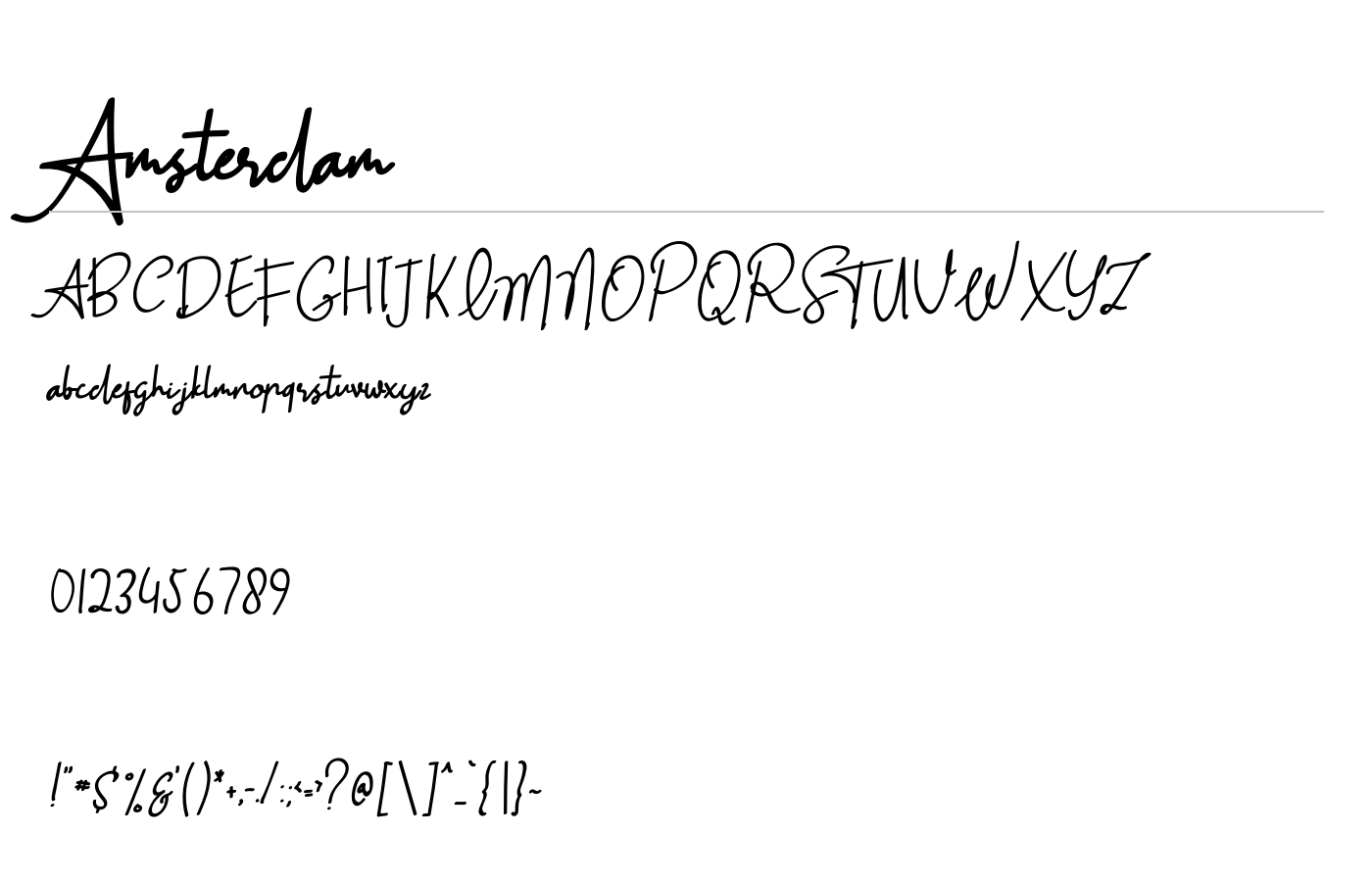
Amsterdam is a lively script font with a casual, handwritten feel characterized by its thin, slightly uneven strokes and playful letter shapes. It balances legibility with personality, making it ideal for adding a friendly, approachable touch to branding, invitations, and creative projects that seek an informal, artistic vibe. This font works well in headline or display uses where a personal, expressive tone is desired.
Amsterdam Font
About Amsterdam Font